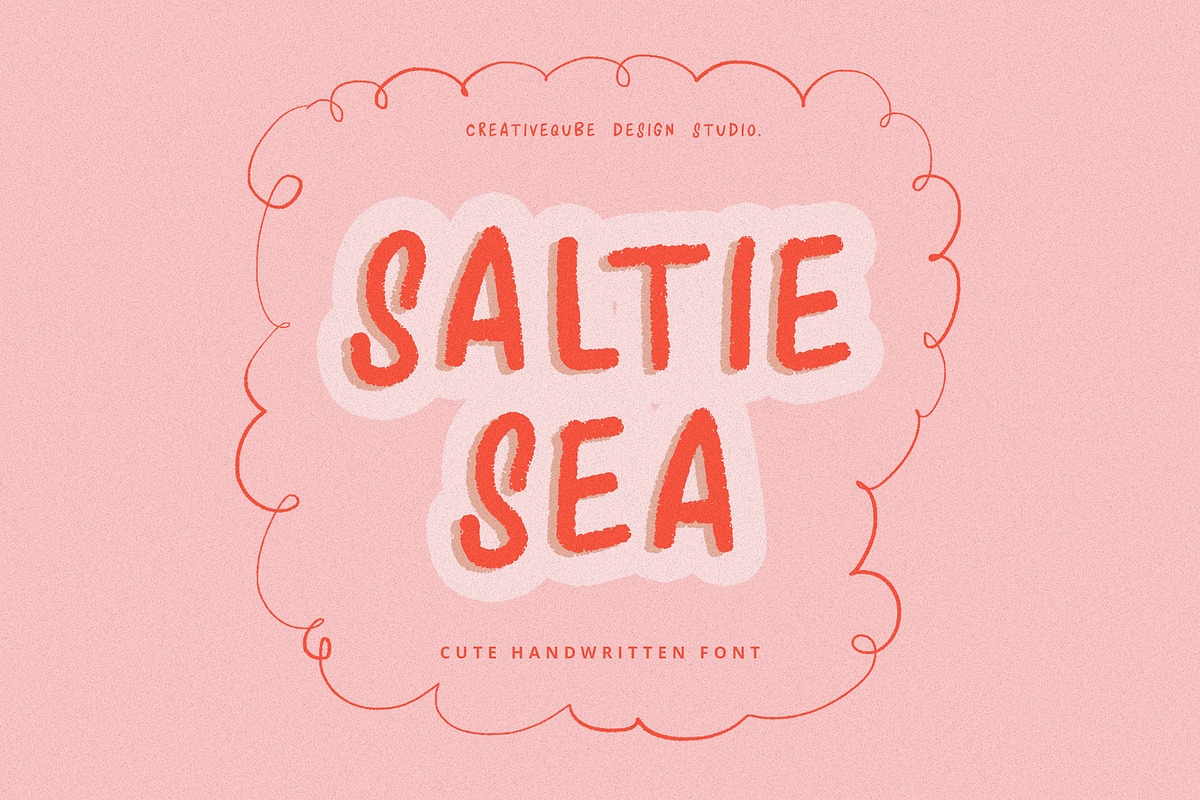
Saltie Sea Digital Font
Saltie Sea Digital Font by Creativeqube Design is a font selected for branding, posters, packaging, typography.
- Welcome - Saltie Sea - a textured hand drawn sans serif uppercase font.
Saltie Sea Digital Font by Creativeqube Design fits naturally into Branding, posters, packaging, typography.